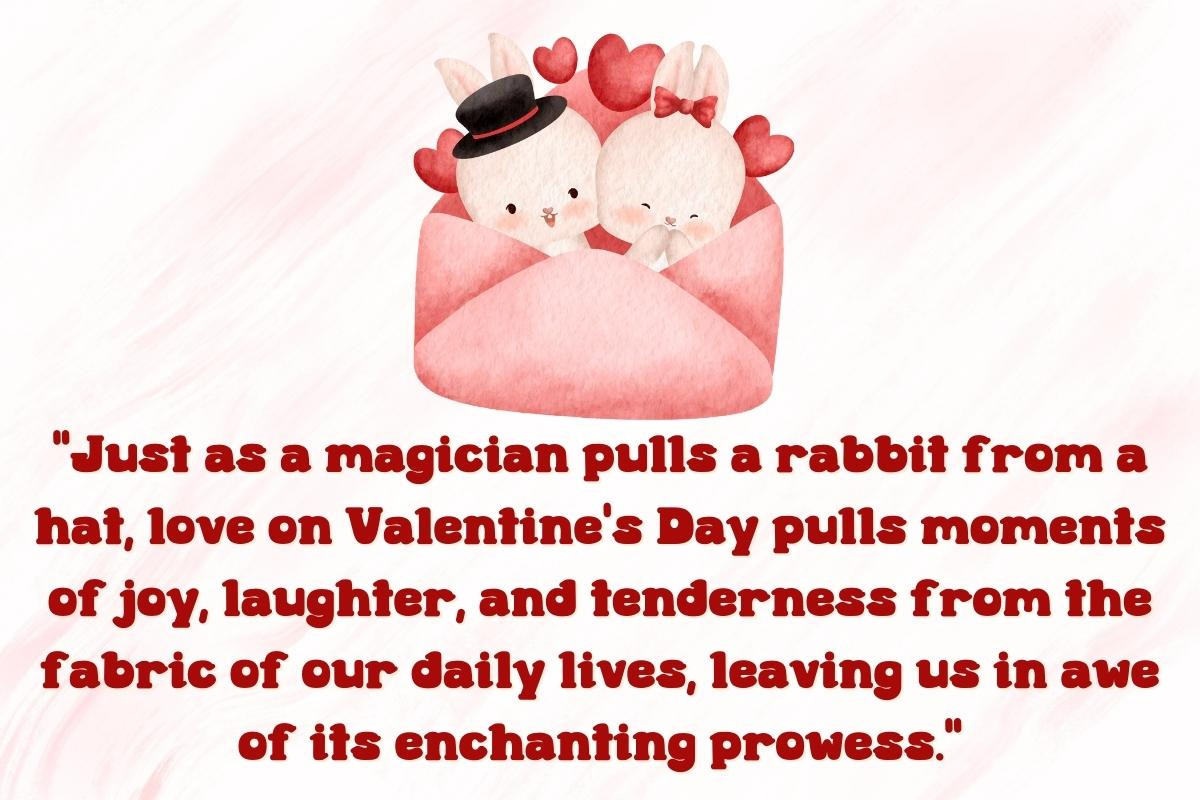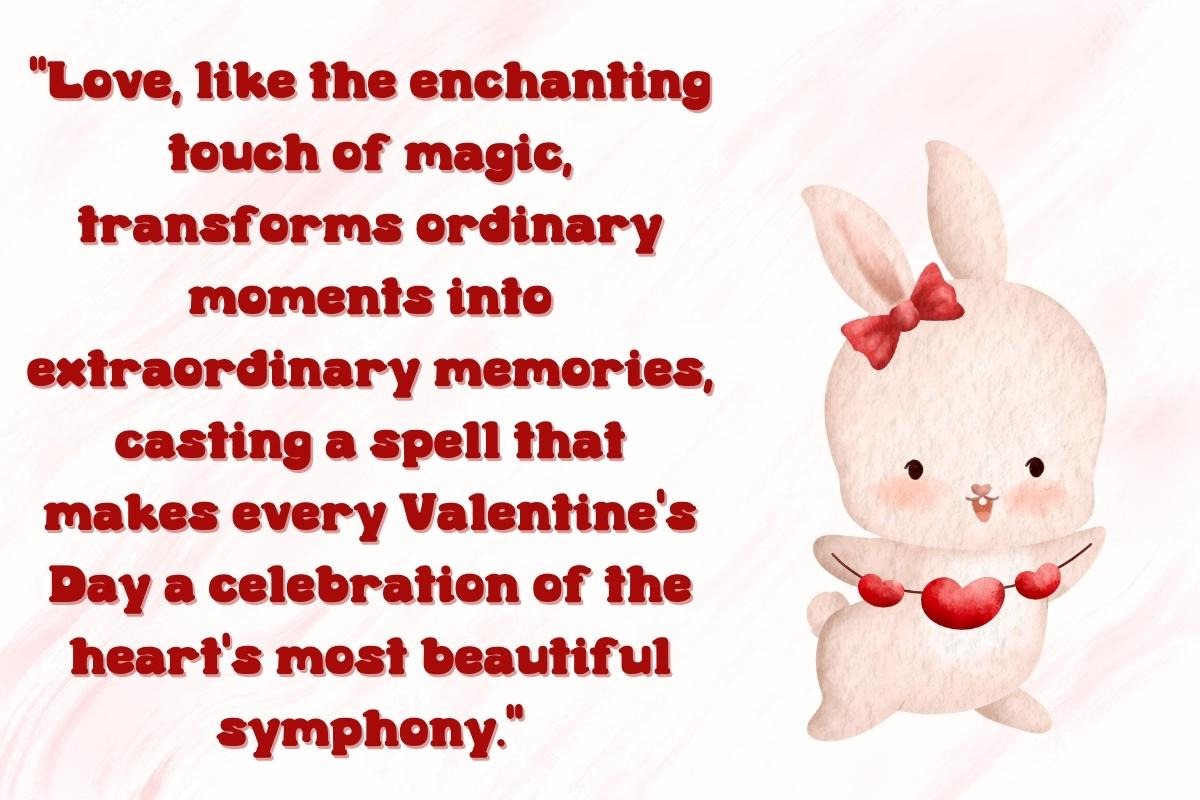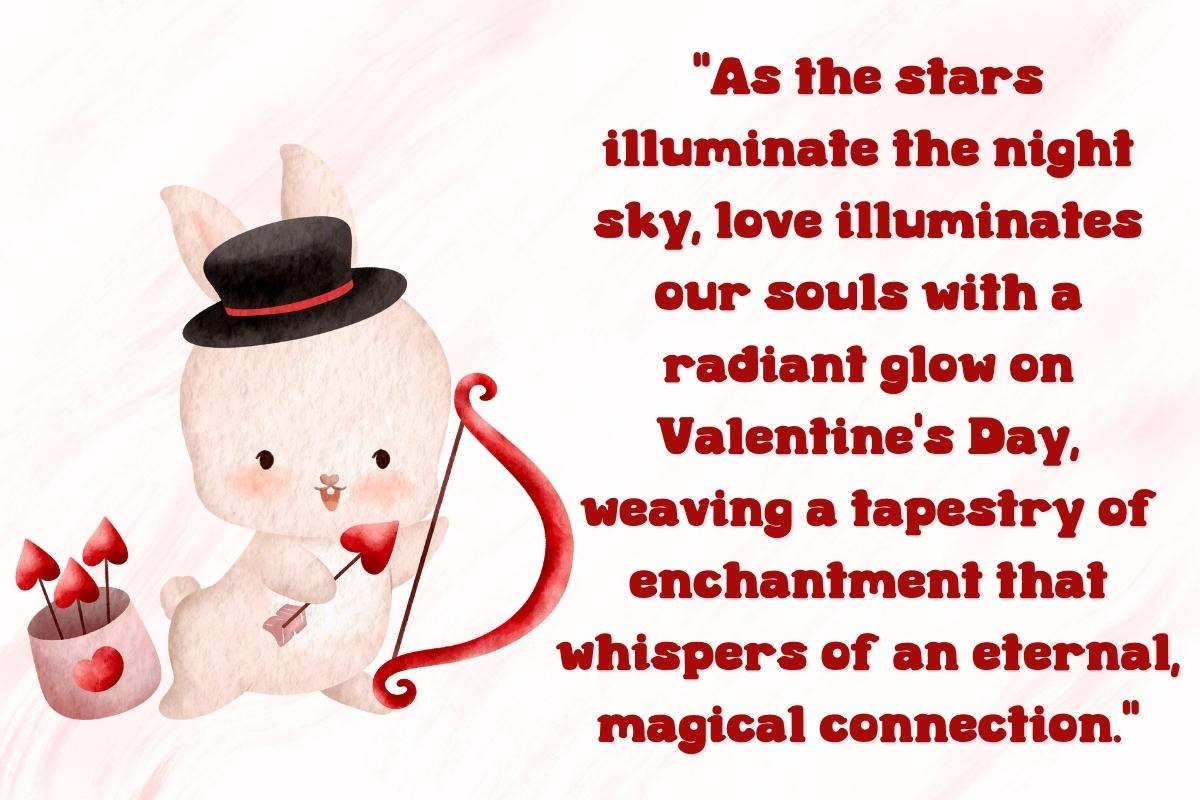
Magic Valentine - Handwritten
Introducing "Magic Valentine" Embark on a journey through the enchanting world of typography with "Magic Valentine" - a font that effortlessly blends timeless elegance with a touch of nostalgic charm. Each letter is meticulously crafted to exude a sense of timeless sophistication, making it the perfect choice for projects that demand a touch of refined grace.